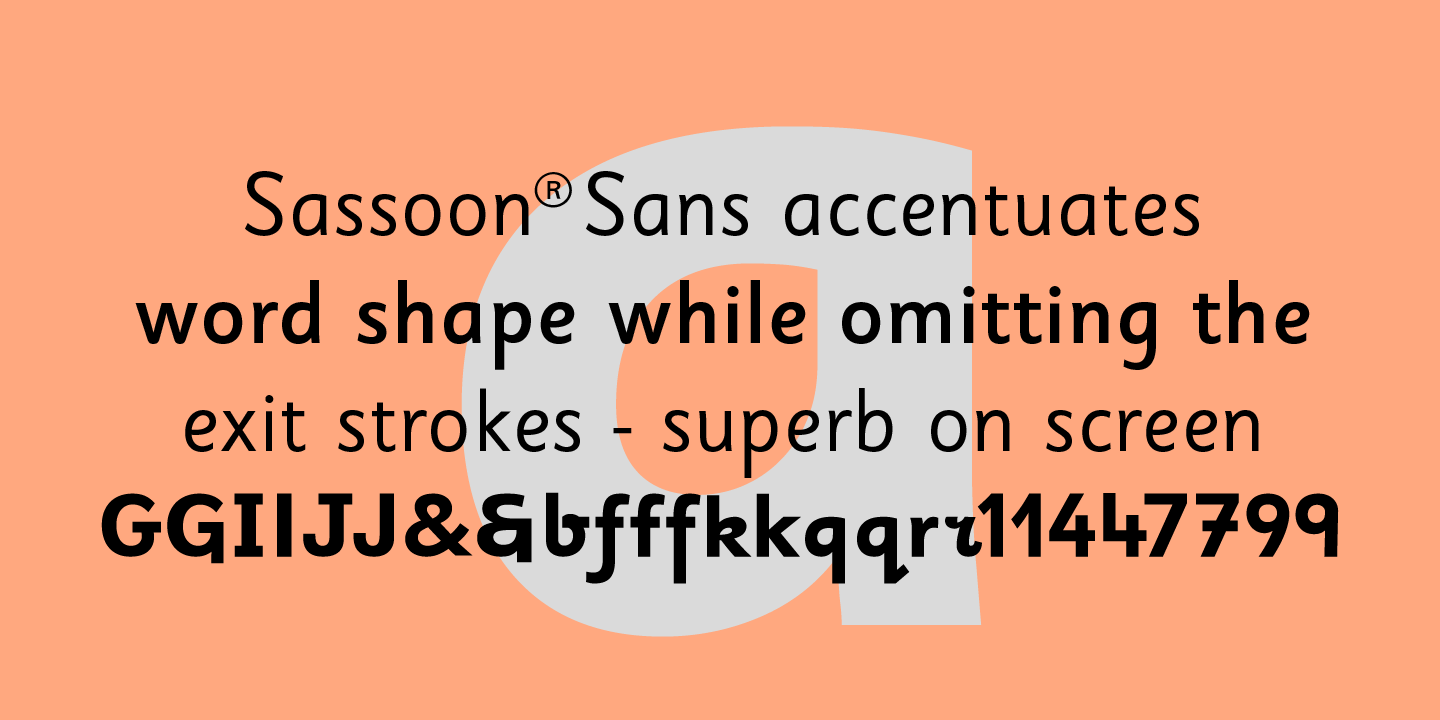
Sassoon Sans Font Free Download is a clean, modern sans-serif typeface designed with readability and simplicity in mind. Perfect for editorial design, branding, websites, signage, and user interfaces, this font combines contemporary aesthetics with practical use. Its rounded edges and straightforward structure make it ideal for both body text and display purposes.
With Sassoon Sans Font Free Download, you’ll receive a complete set of uppercase letters, lowercase, numbers, and essential punctuation, providing versatility for a range of creative applications. Whether you're developing a minimalist logo, crafting web content, or designing sleek marketing materials, this font ensures clarity and a modern, professional touch.
Bring a contemporary edge and clarity to your designs with Sassoon Sans Font Free Download. Its clean, modern look makes it an excellent choice for projects that need a simple yet stylish aesthetic.